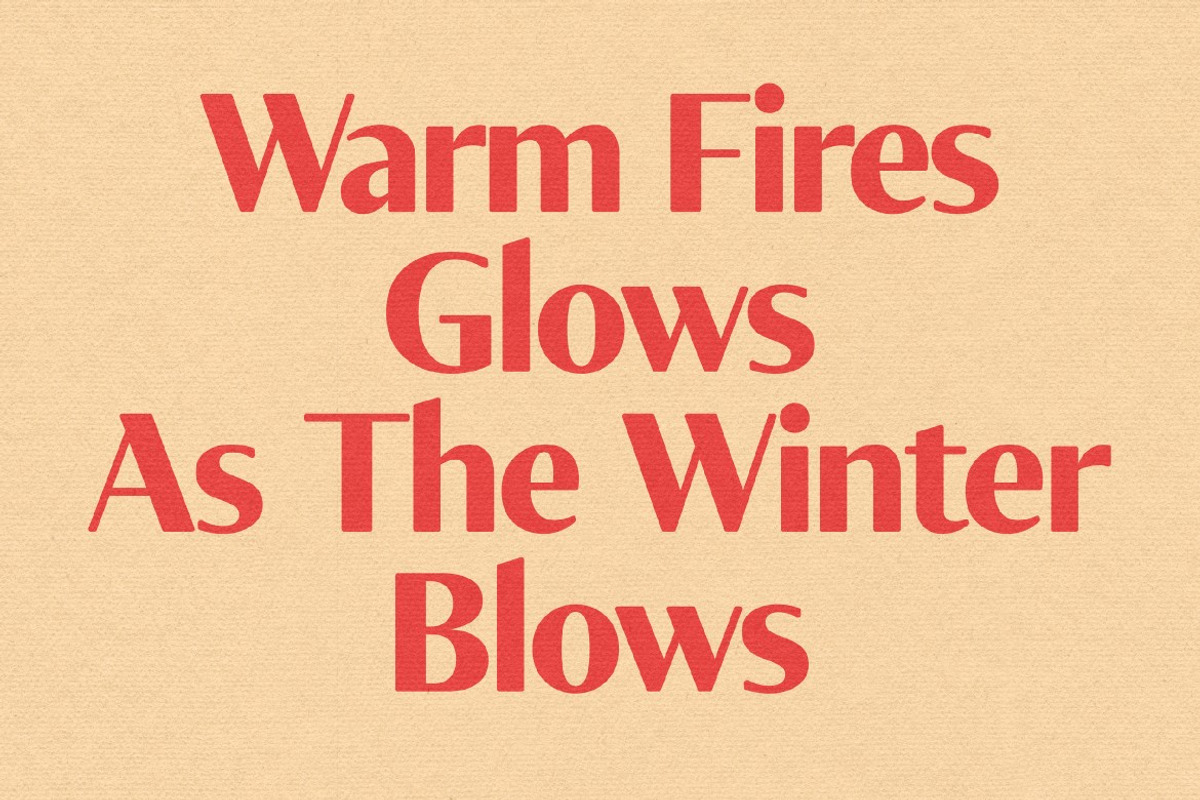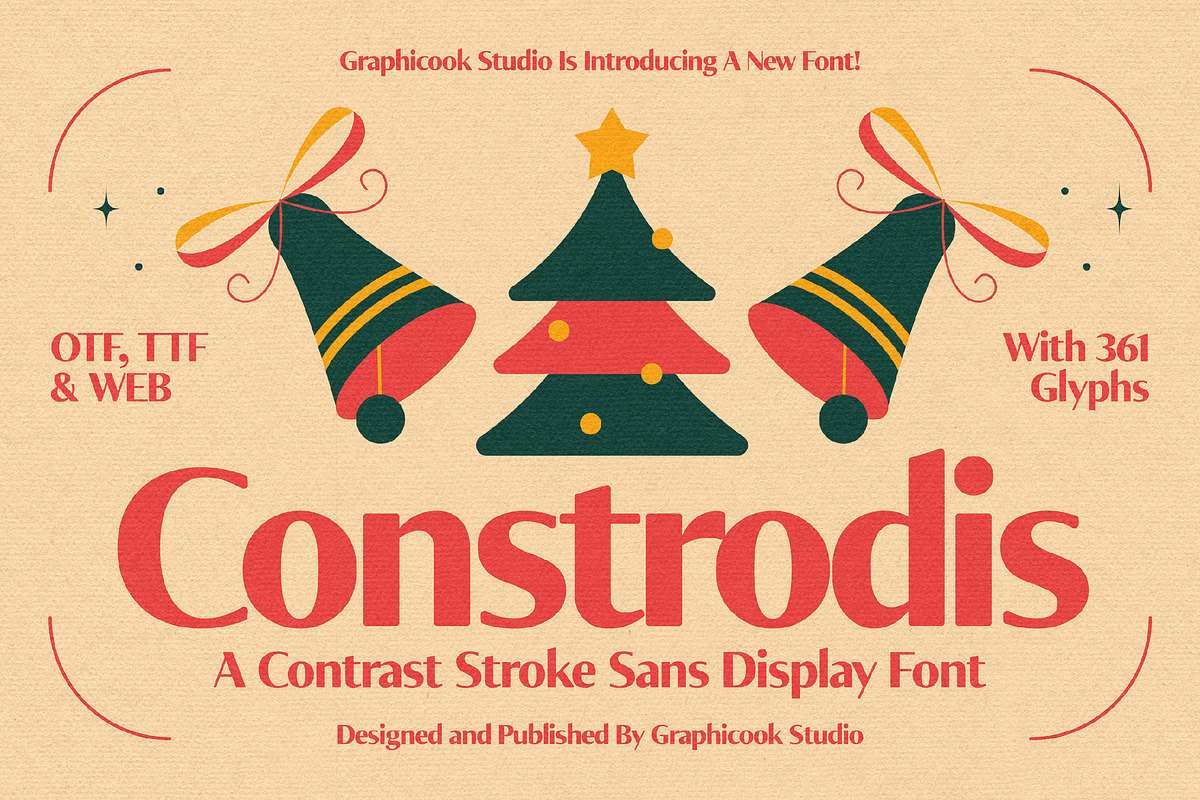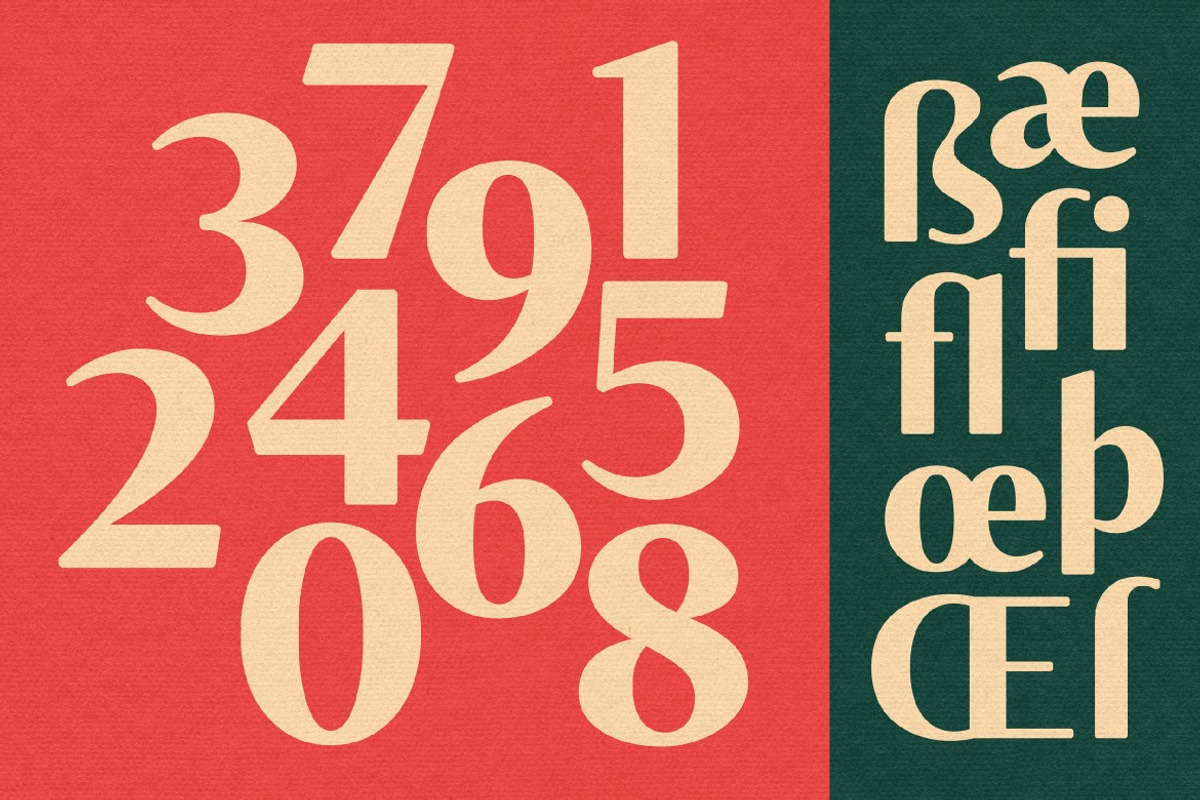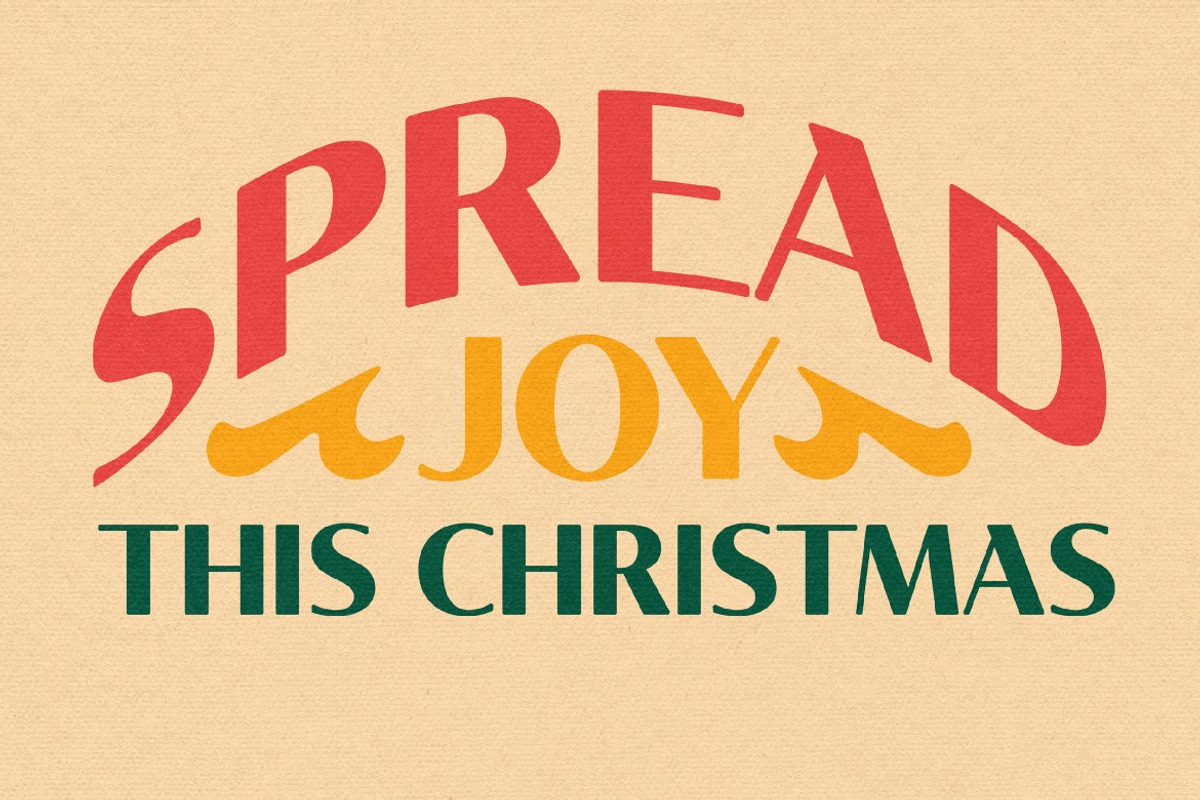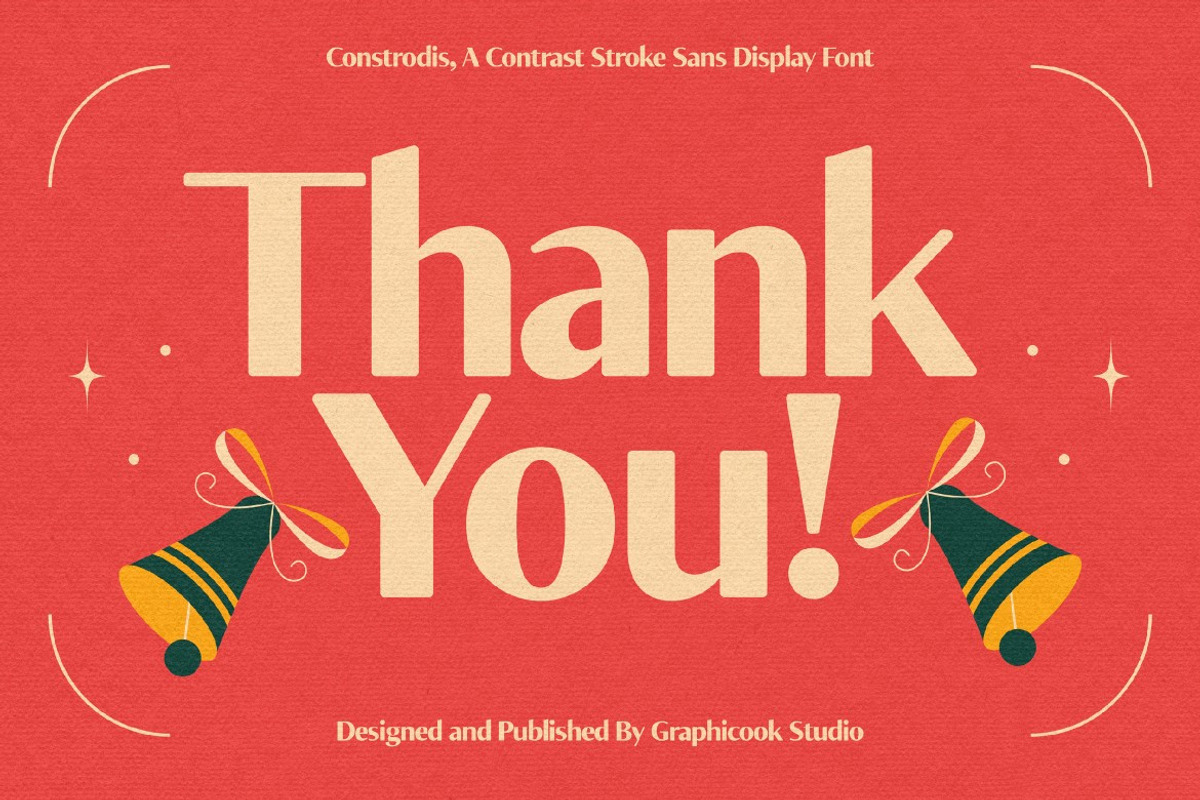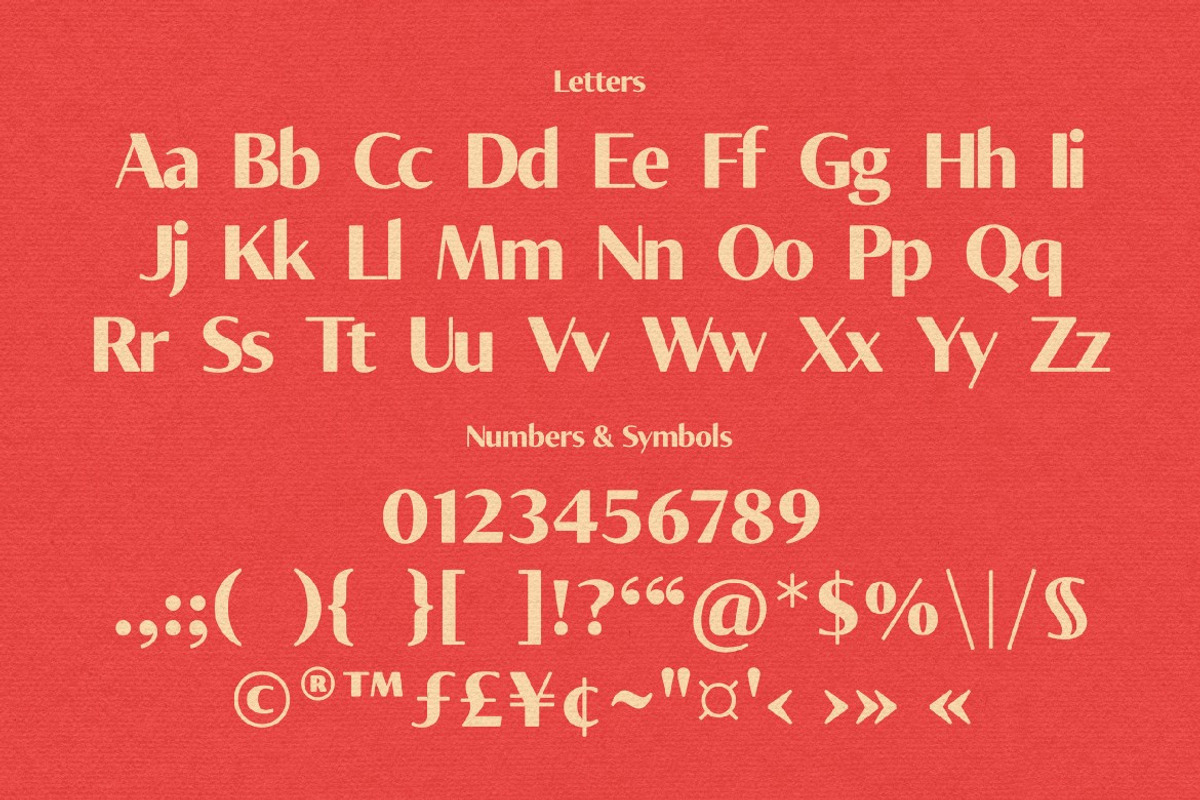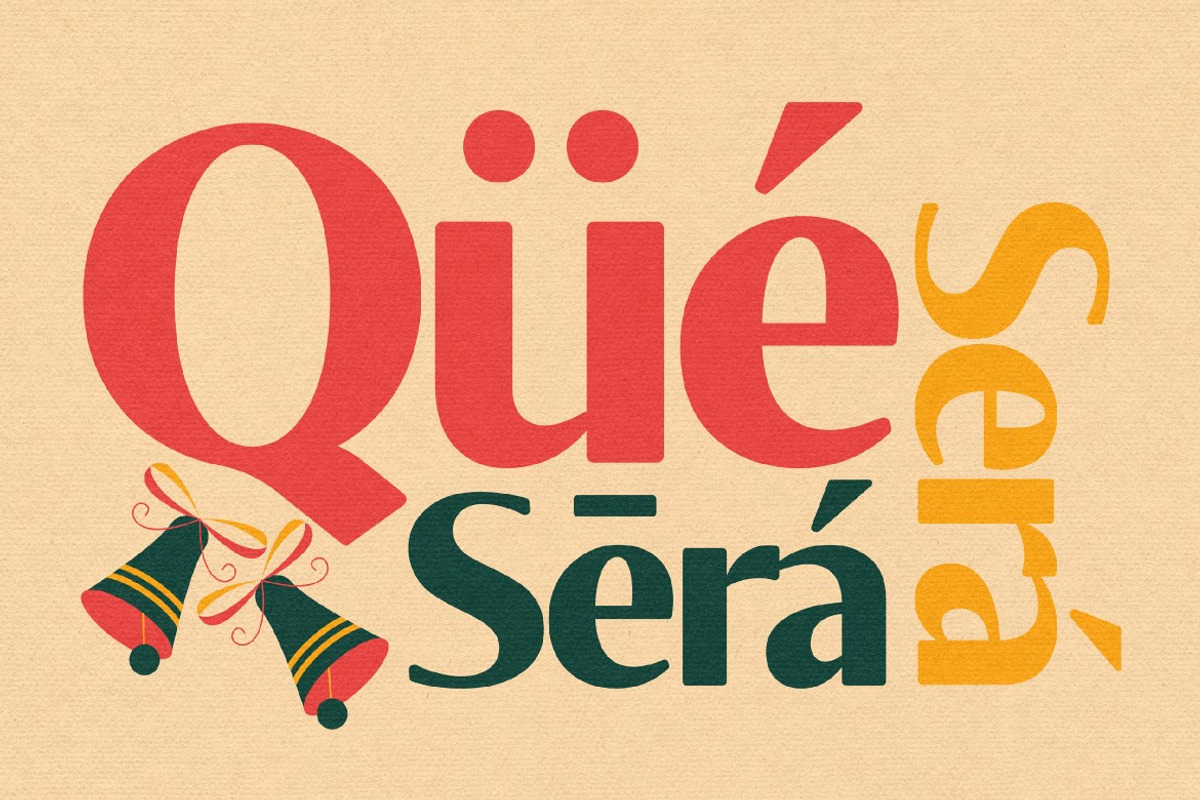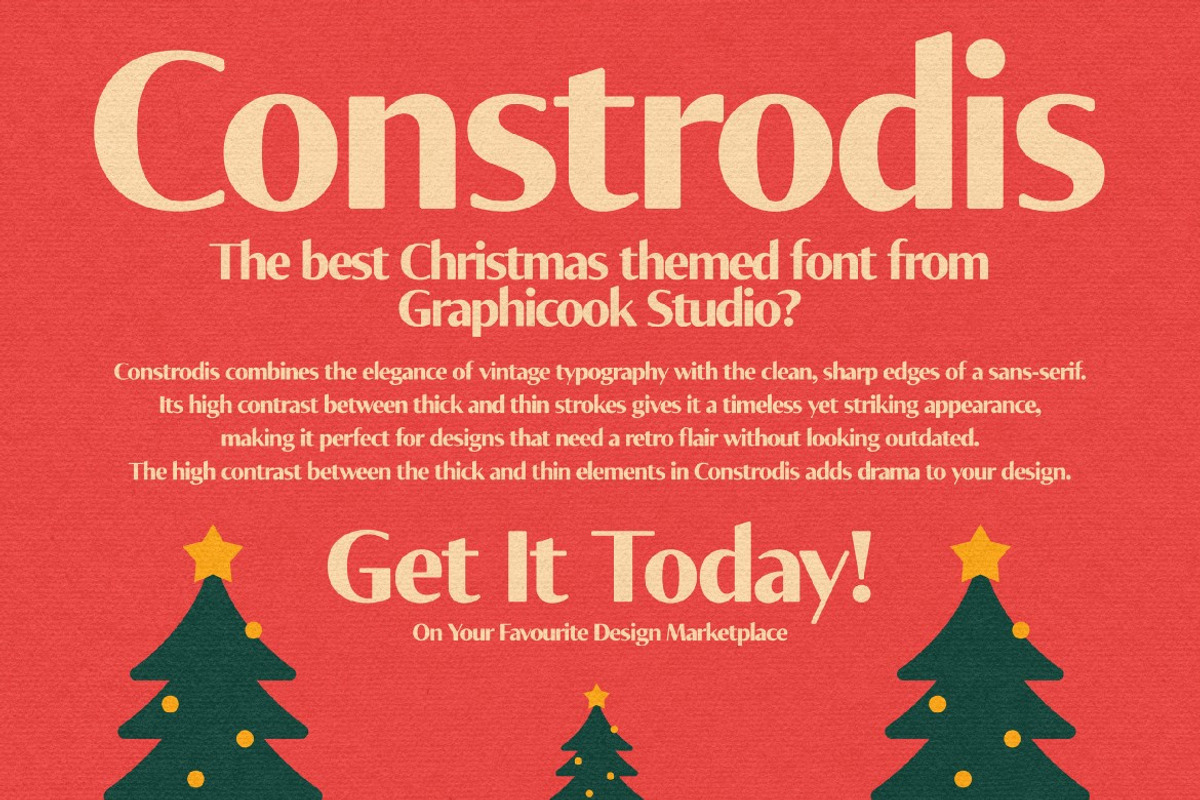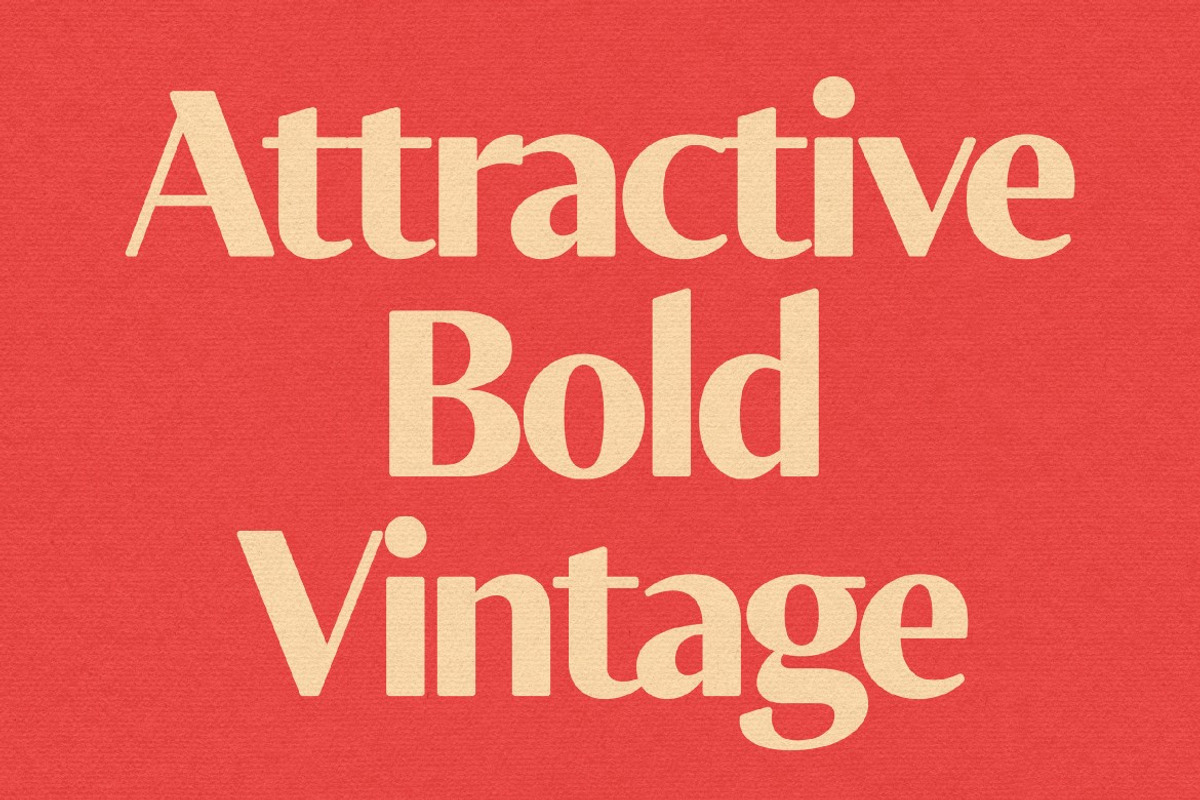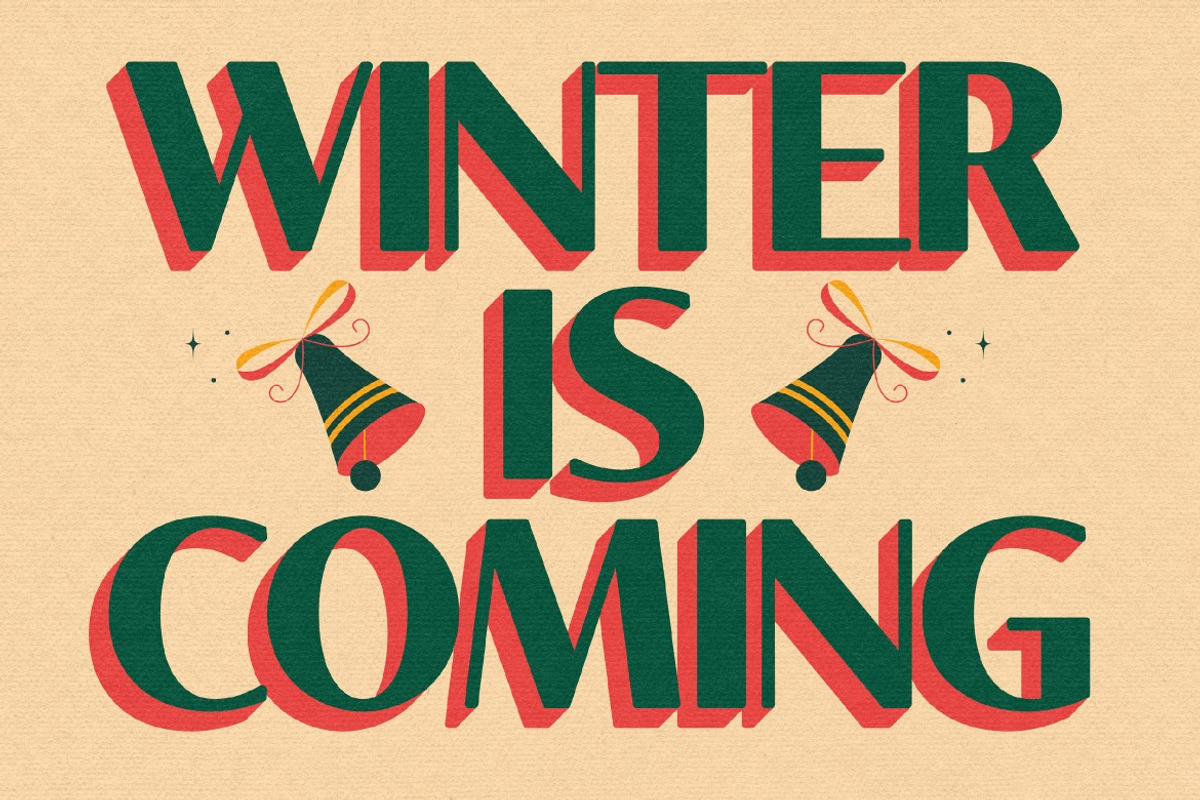
Constrodis
Controdis Typeface! A contrast sans font with a Christmas theme, designed to bring power and festivity to your Christmas seasonal projects.
Seryfold is perfect for headlines, logotypes, magazines, packaging, quotes, movies, games, cover albums, book covers, and flyers, it's a perfect solution for creating eye-catching designs that stand out in any context.